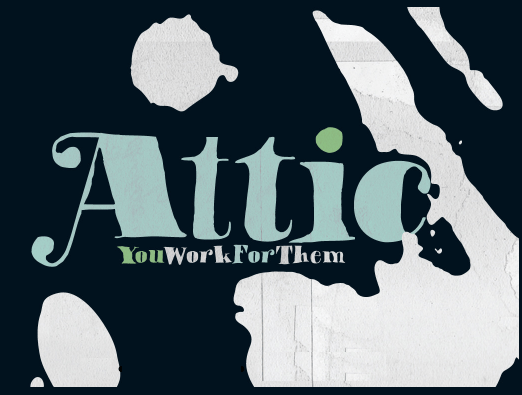
This is about a journey, from humble EPS handset to magical OpenType glory that might even be a bit spooky if it wasn\’t so darn majestic. This stately YWFT Attic is full of surprises, with gorgeous stylistic alternates and swash features that even Scooby…